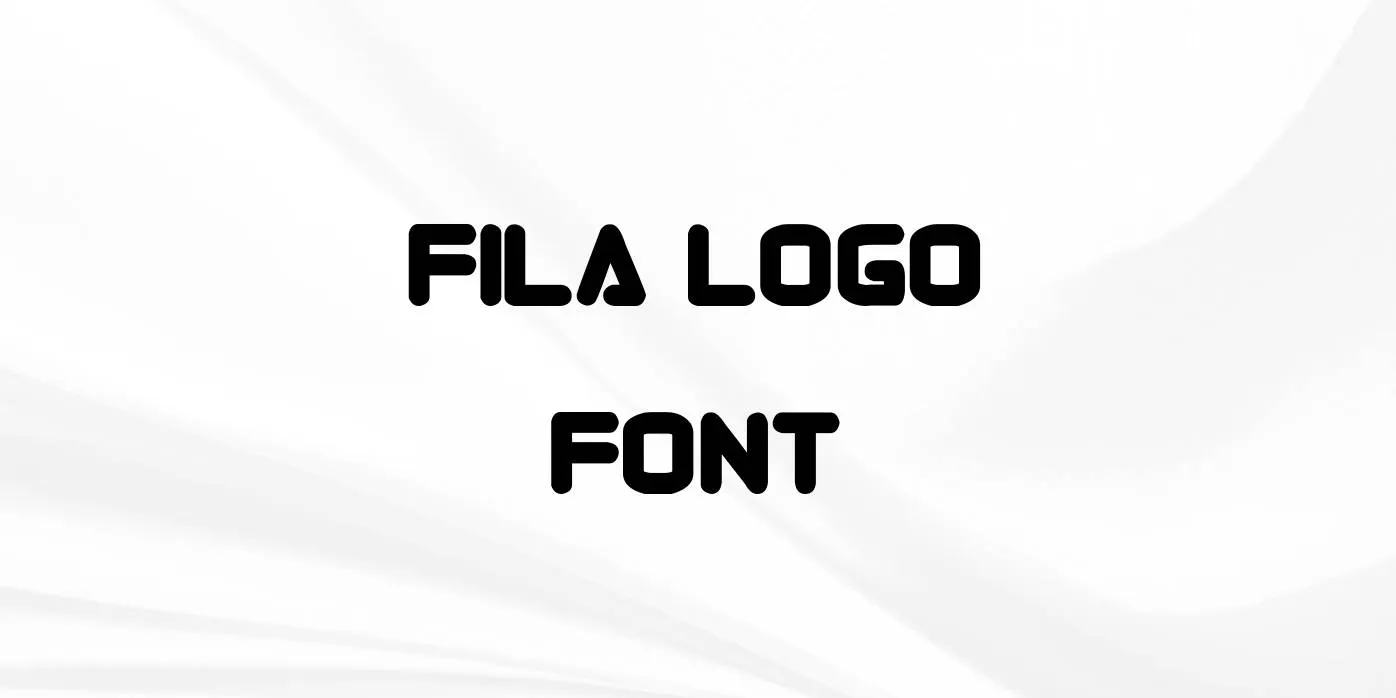
Fila Logo Font
Fila logo Font is the font used in the Fila logo. The Font has been used by the company since its inception in 1911, and it has become synonymous with the Fila brand. The Font is a popular choice for brands looking to create a unique and recognizable identity. The Font is a logo font with a unique style that makes it stand out from other logo fonts.